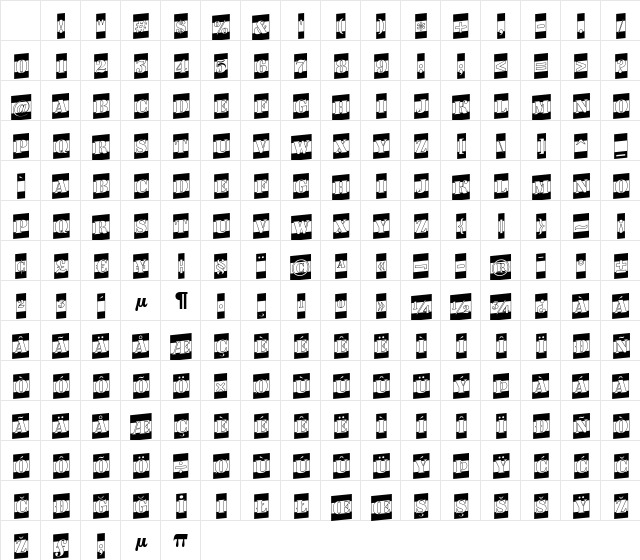
Complete a_DodgerCmB&WUp Regular glyph index. Displaying only characters natively supported by a_DodgerCmB&WUp Regular font.
a_DodgerCmB&WUp is a composed and adaptable typeface that performs quietly and consistently across a wide range of design contexts.